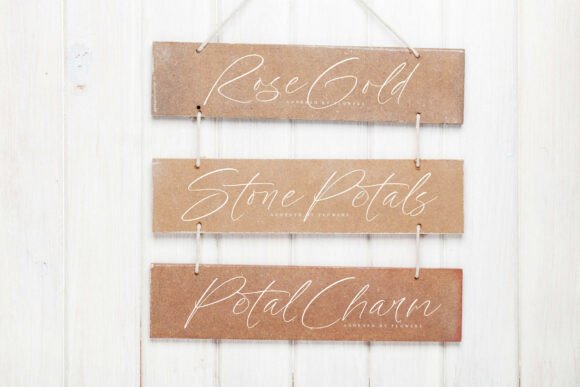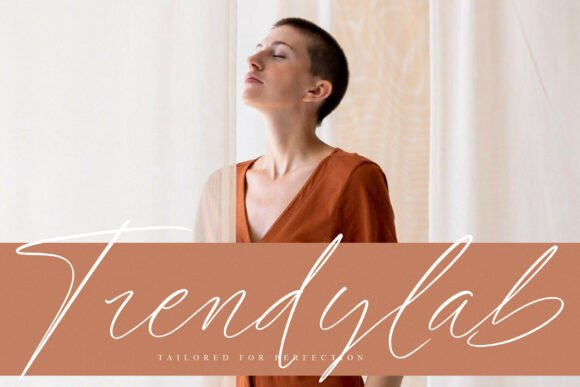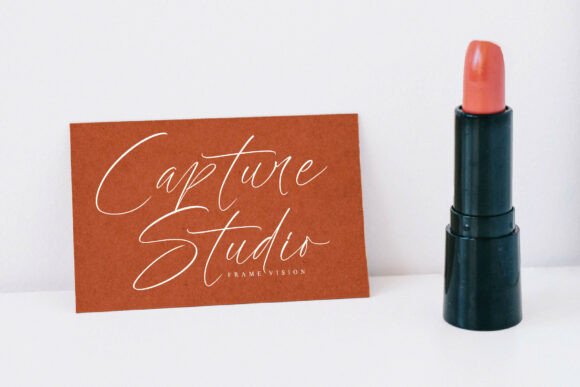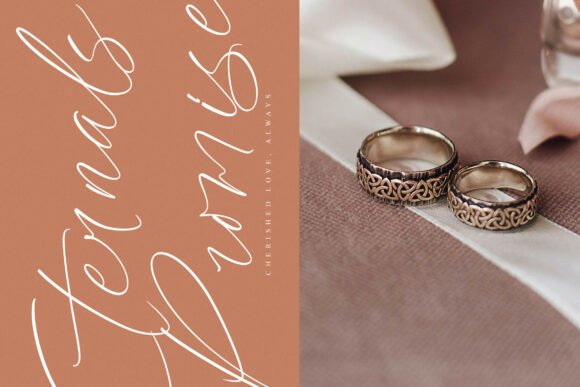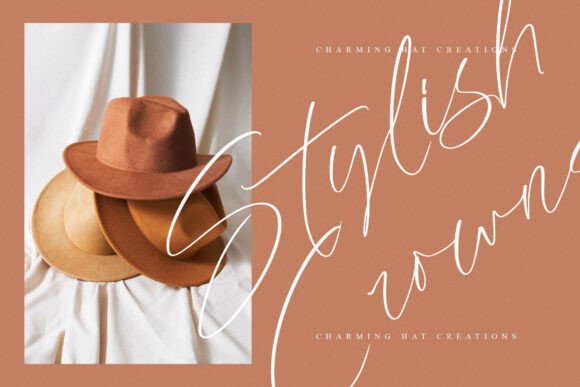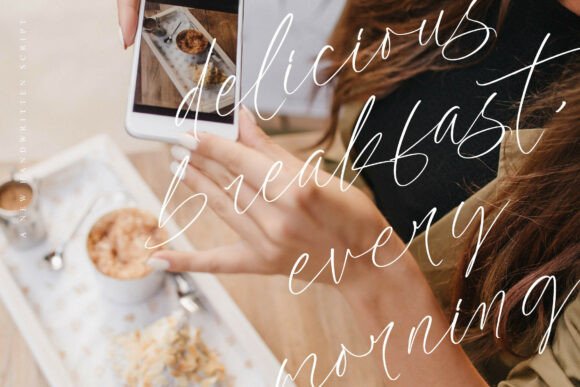
Introducing Artfully Stylish Font: Elevate Your Designs with Elegance and Versatility
In the world of design, typography plays a crucial role in conveying the tone and aesthetic of a brand or creative project. For designers and crafters seeking a font that embodies elegance, sophistication, and versatility, Artfully Stylish is an exceptional choice. This sleek, fashion-forward handwritten font is meticulously designed to meet the demands of modern design, making it perfect for a wide range of applications, from branding and social media graphics to packaging and editorial designs.
The Art of Elegance: Design Features of Artfully Stylish Font
Artfully Stylish boasts long, flowing lines that give it a distinctive, luxurious feel. Its elegant strokes and carefully crafted letterforms ensure that every word and sentence flows smoothly, adding a touch of sophistication to any design. The font’s design is not just about aesthetics; it’s also highly functional, offering multilingual support. This means that designers can use Artfully Stylish to create content for a global audience, without worrying about the font’s compatibility with different languages.
One of the key advantages of Artfully Stylish is its incredible versatility. Whether you’re working on a branding project, creating engaging social media graphics, designing packaging that stands out on store shelves, or crafting stylish editorial content, this font adapts seamlessly. Its fashion-forward approach ensures that your designs are always on-trend, appealing to audiences who appreciate style and sophistication.
Applications of Artfully Stylish Font
- Branding: Establish a luxurious brand identity with Artfully Stylish. Its elegant appearance makes it perfect for logos, business cards, and brand guidelines.
- Social Media Graphics: Elevate your social media presence with stylish graphics, quotes, and posts that capture the essence of your brand or personal style.
- Packaging: Make your products stand out with beautiful, high-end packaging designs that reflect the quality of your offerings.
- Editorial Designs: Add a touch of elegance to magazines, blogs, and digital publications with Artfully Stylish. Its readability and flow make it ideal for articles, headlines, and captions.
Why Choose Artfully Stylish Font?
Choosing Artfully Stylish for your design projects comes with numerous benefits:
- Elegance: Adds a sophisticated touch to any design.
- Versatility: Suitable for a wide range of design applications.
- Multilingual Support: Enables the creation of content for a diverse audience.
- Fashion-Forward: Keeps your designs current and stylish.
Artfully Stylish Font is a powerful tool for designers and crafters looking to infuse their projects with elegance, style, and versatility. Its unique design features, combined with its wide range of applications, make it an invaluable asset in the world of design. Whether you’re aiming to create stunning branding, engaging social media content, eye-catching packaging, or stylish editorial designs, Artfully Stylish is the perfect companion for your creative journey.
Embrace the art of stylish typography and elevate your designs to new heights of sophistication and appeal. With Artfully Stylish Font, the possibilities are endless, and the impact is undeniable.